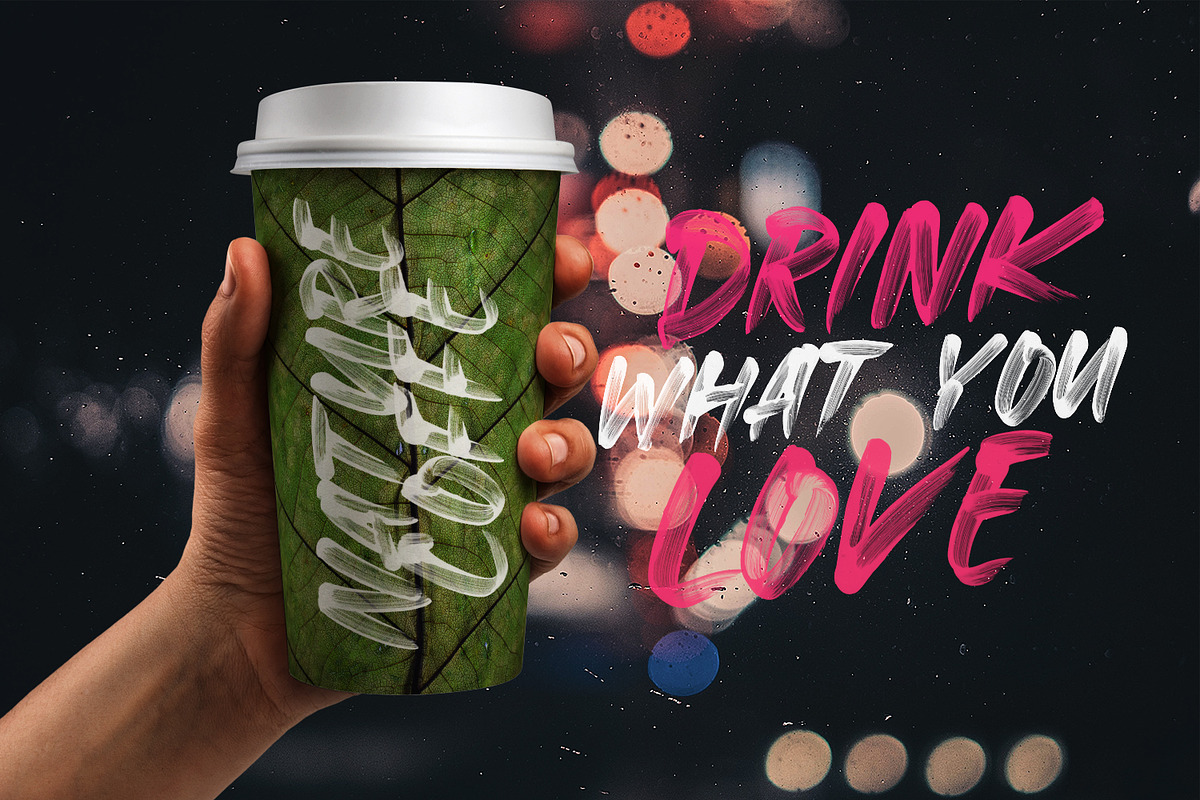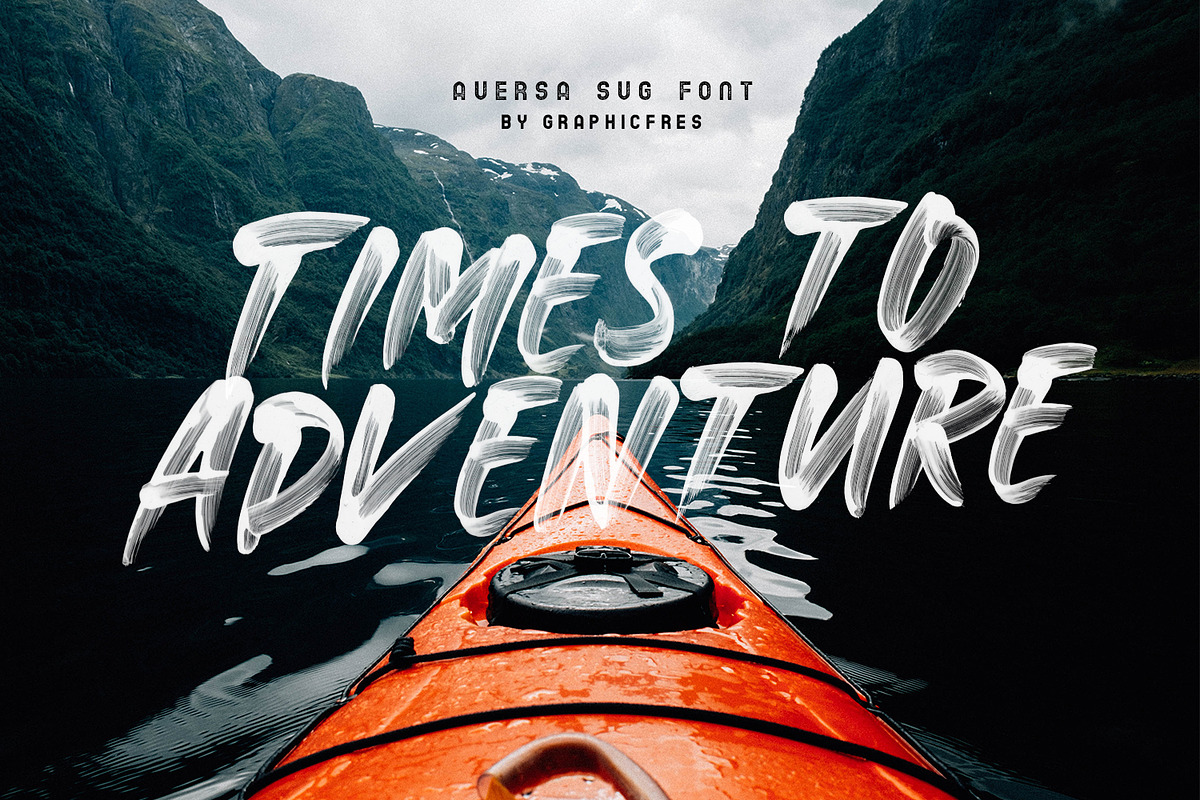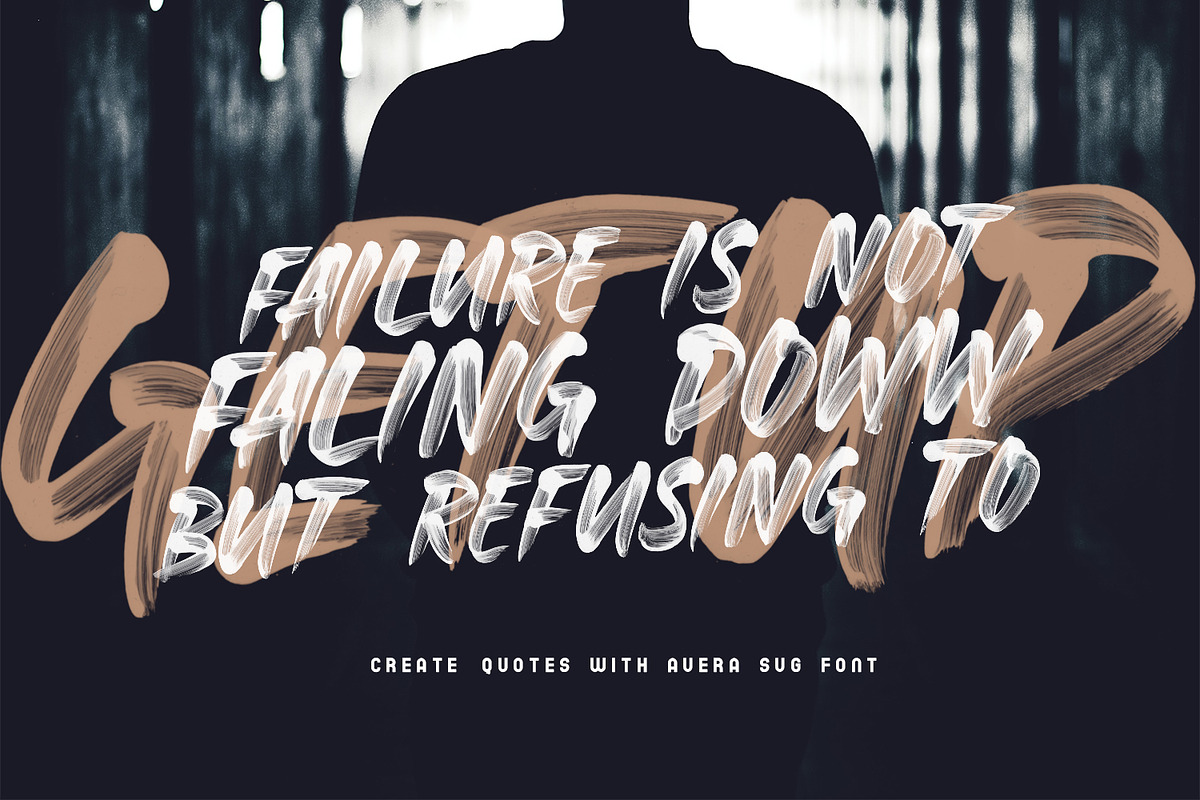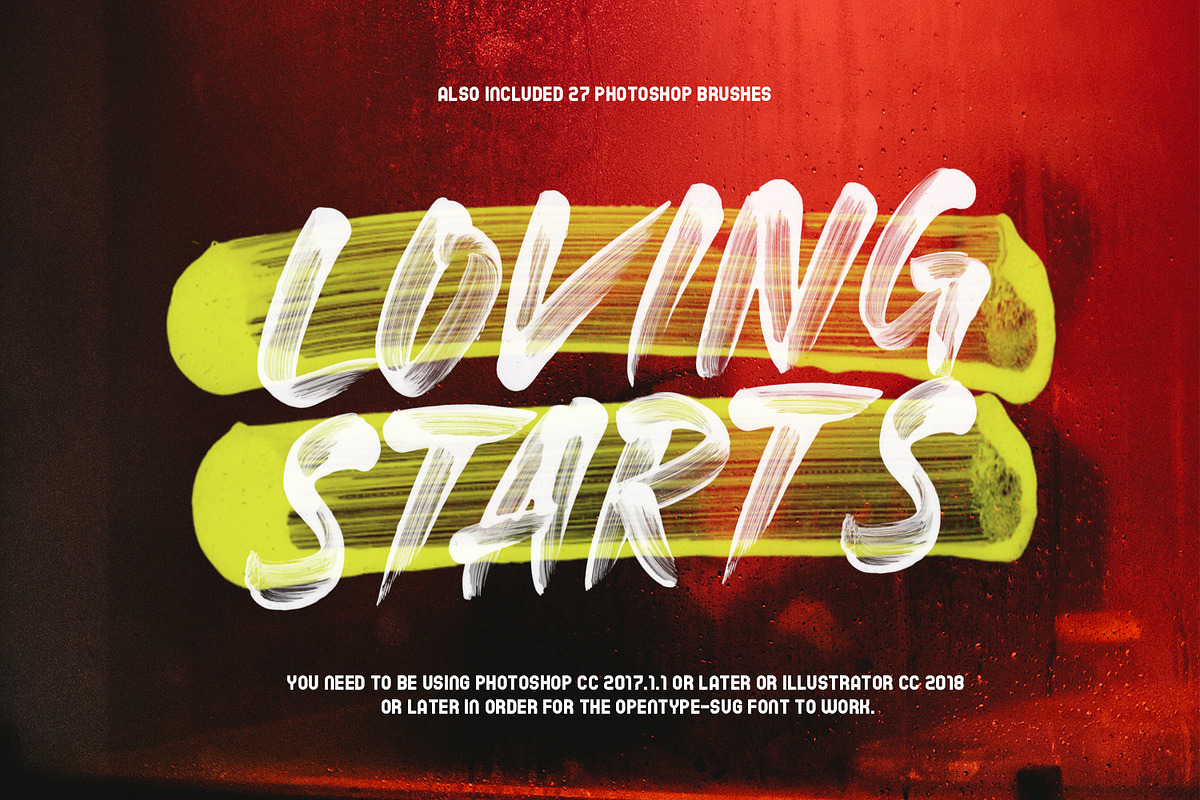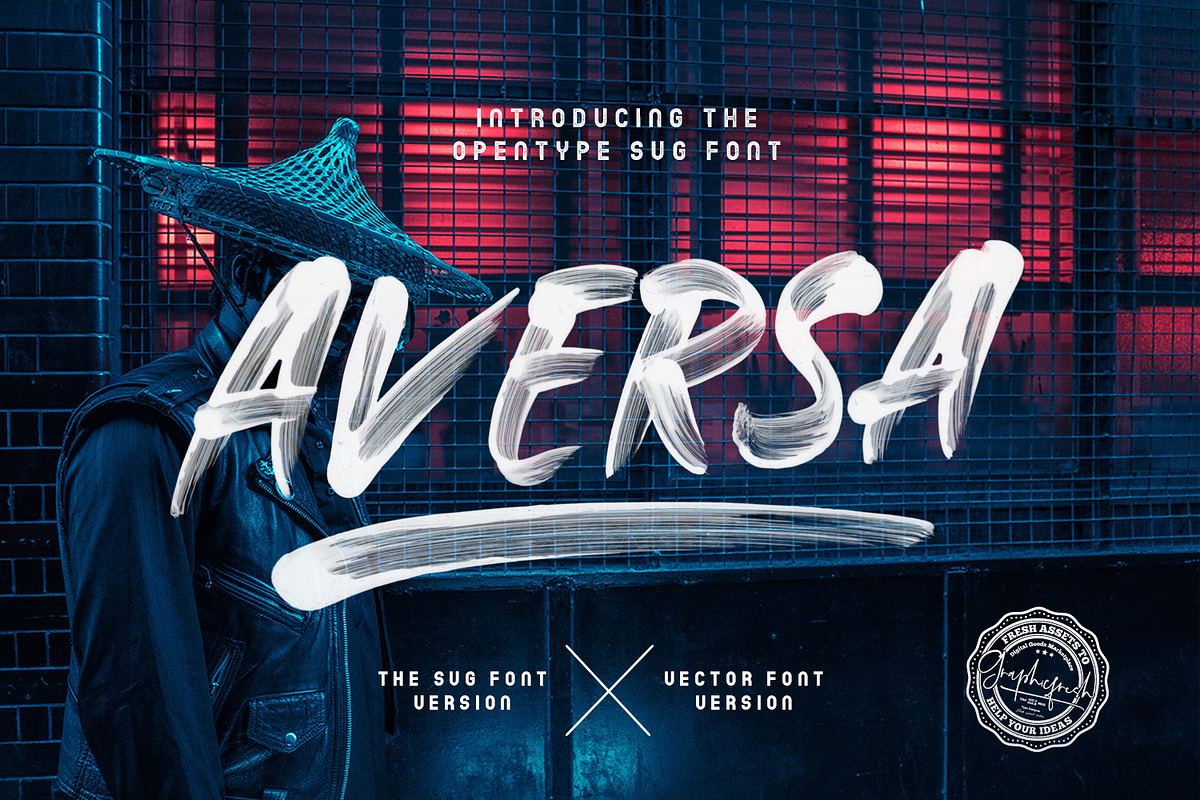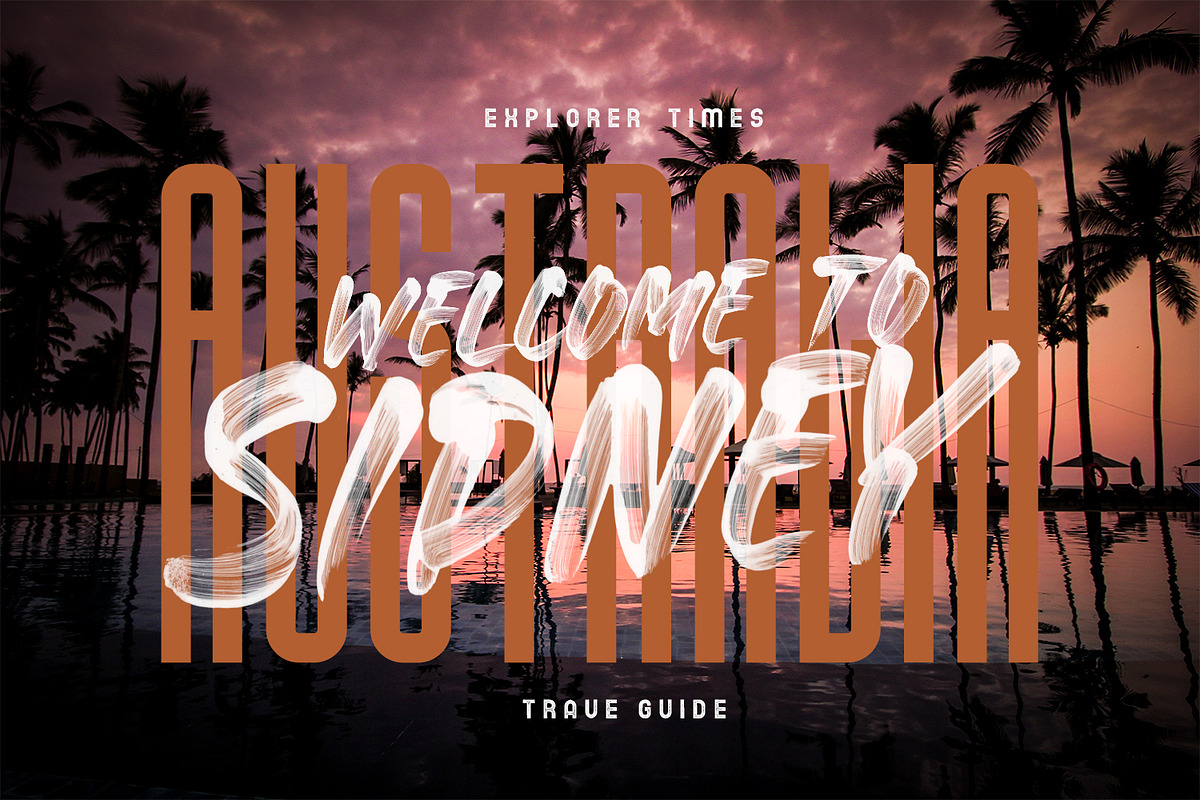
Aversa SVG Font + 27 Brushes
This font is made with brush strokes, dipped in paint. Then it was written on a best paper and scanned with high resolution. So that it doesn't remove the paint element. It will be perfect for posters, packaging, advertisements, headlines, branding, signboards, and whatever else you want from an urban look and feel.
Aversa Opentype SVG Font: This is the main font file containing all the oil realistic effects.